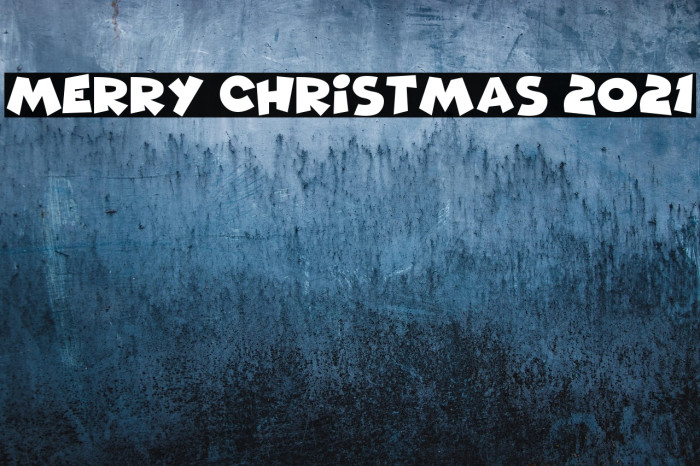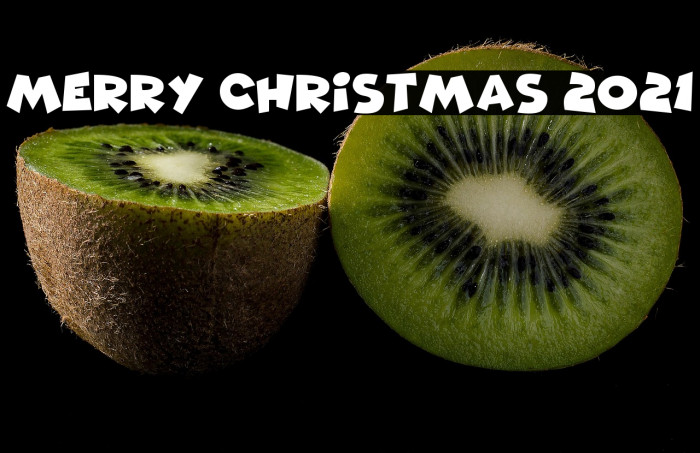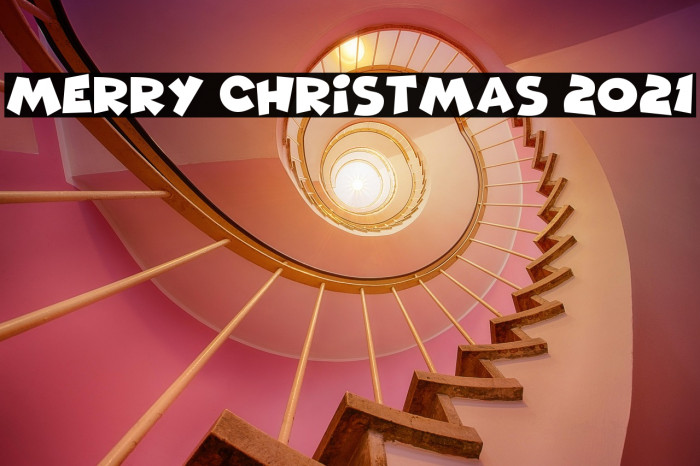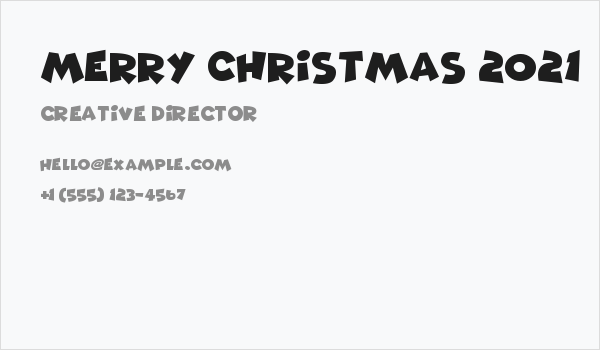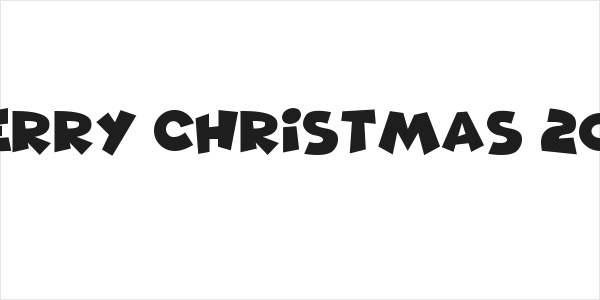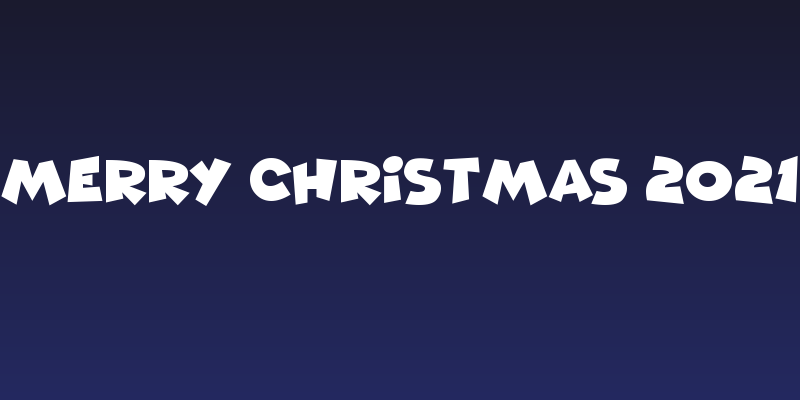
Merry Christmas 2021 Font
Merry Christmas 2021 Description
This font features a playful and bold design, characterized by its exaggerated, uneven letterforms that give it a whimsical and dynamic appearance. The letters are thick and chunky, with a slightly irregular baseline that adds to its quirky charm. The font's boldness makes it highly visible and attention-grabbing, ideal for festive and fun applications. The characters are well-spaced, ensuring readability despite their unconventional shapes. The numbers and special characters maintain the same playful style, making the font cohesive across different uses.
| Proposed Projects | Ideal for holiday-themed designs, children's books, party invitations, and playful branding. |